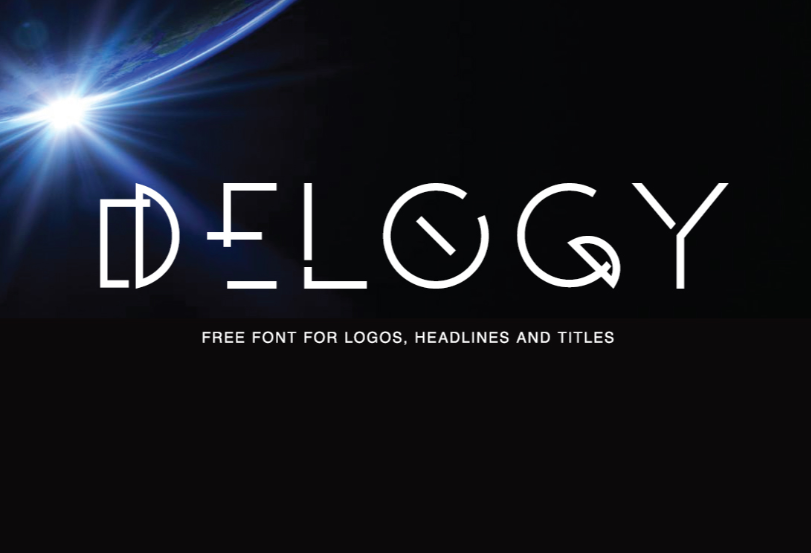
Delogy Typeface
Free font for logos, headlines and titles. Introducing Delogy Font. It is designed and shared by Rasul Hasan. It’s got a bold attitude and can be used over a diversity of projects. You could use it for sports design, editorial, entertainment, military and apparel.